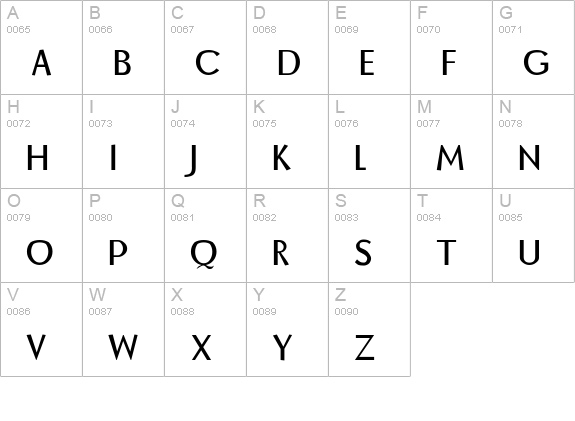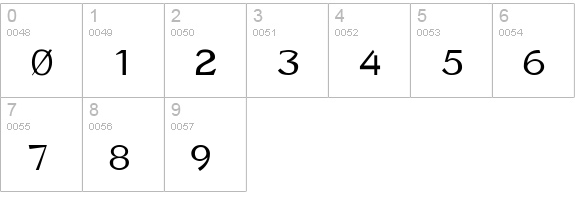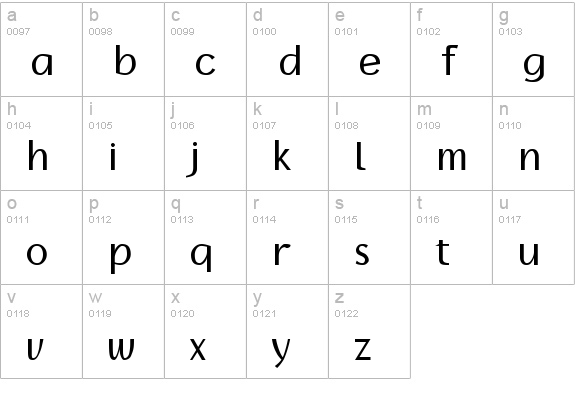
BorzoiReaderPla Font Details
BorzoiReaderPla is a beautifully crafted font that exudes elegance and sophistication. With its sleek serifs and stylish curves, this font is perfect for adding a touch of class to any project. Whether you're designing a wedding invitation, a menu for a high-end restaurant, or creating a stylish logo, BorzoiReaderPla is sure to impress. What makes BorzoiReaderPla even more appealing is that it is available for free download at FontsMarket.com. That's right, you can add this stunning font to your collection without spending a dime. Don't miss out on the opportunity to enhance your designs with the timeless beauty of BorzoiReaderPla. Download it today and let your creativity soar!